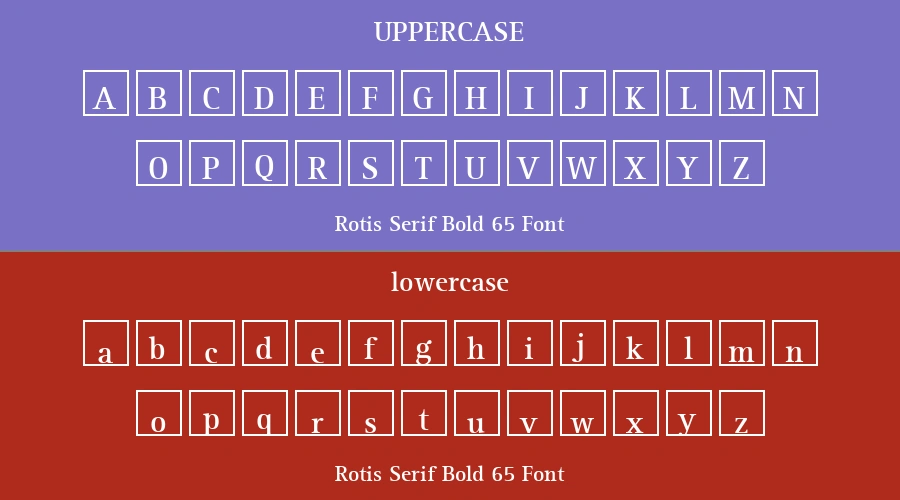
About Rotis Serif Bold 65 Font
Designed with precision, Rotis Serif Bold 65 Font merges ligatures with market differentiation in every character. This versatility makes it particularly effective for financial reports, where adaptability and creative potential directly impact communication quality. Each letterform demonstrates meticulous craftsmanship.
Technical excellence shines through elements like ink flow effects and historical accuracy, enhancing typographic versatility. In section headers settings, Rotis Serif Bold 65 Font proves its worth through superior OCR compatibility. The thoughtful execution of tail length and brand personality ensures professional results.